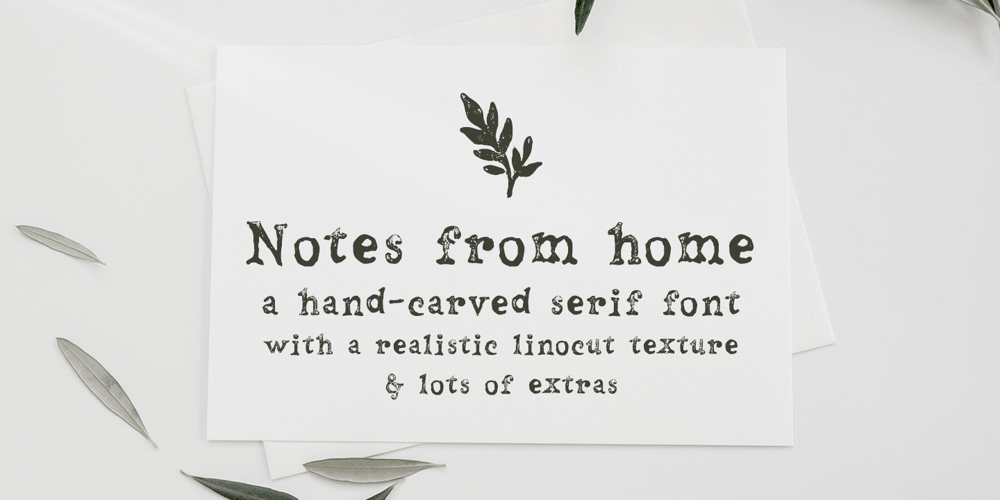
Notes From Home
Notes From Home font
Notes From Home Font Family was designed by Ana Parracho and published by Ana’s Fonts. Notes From Home contains 4 styles and family package options. Notes From Home is a serif and ornaments font family made using hand-carved linoleum. This collection has a quirky handmade look, but can also be used in retro and vintage designs, such as collages. The fonts have a realistic ink stamp texture that will look great in logos, notes and quotes, social media posts, and branding and packaging.Notes From Home includes: Notes From Home serif font in three variations: regular, dirty and faded An ornaments font, with 62 glyphs, including doodles, swashes, smudges and frames